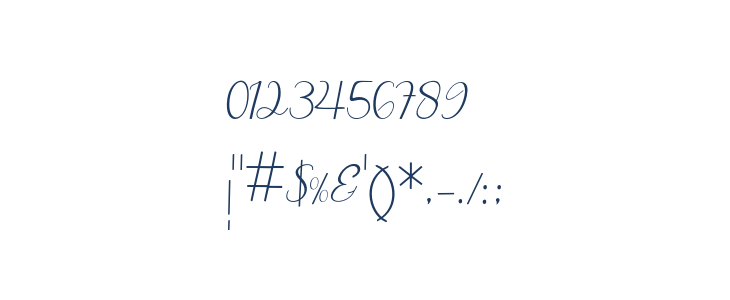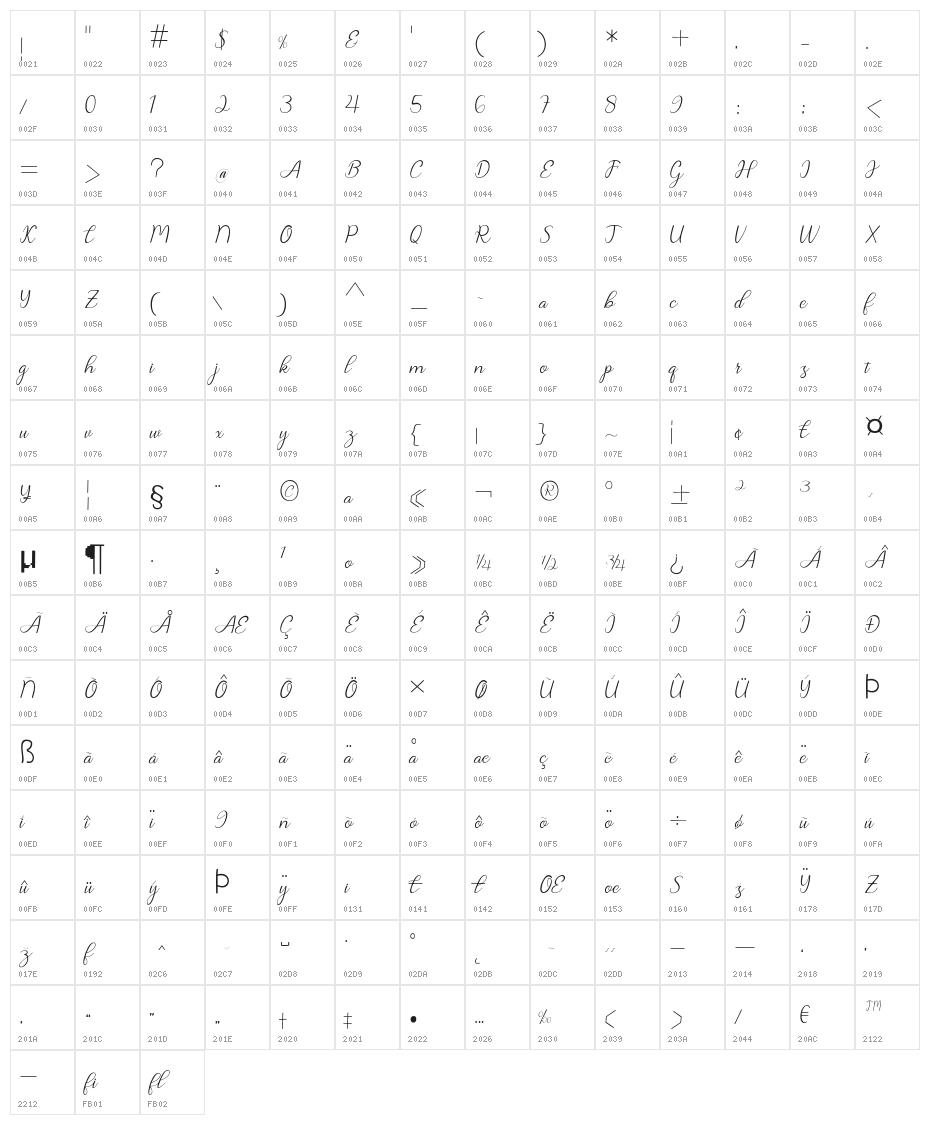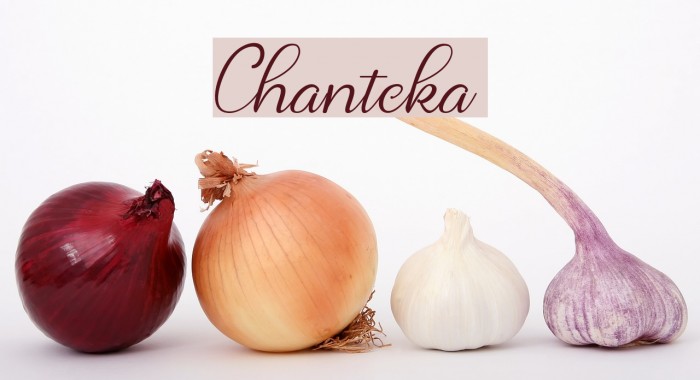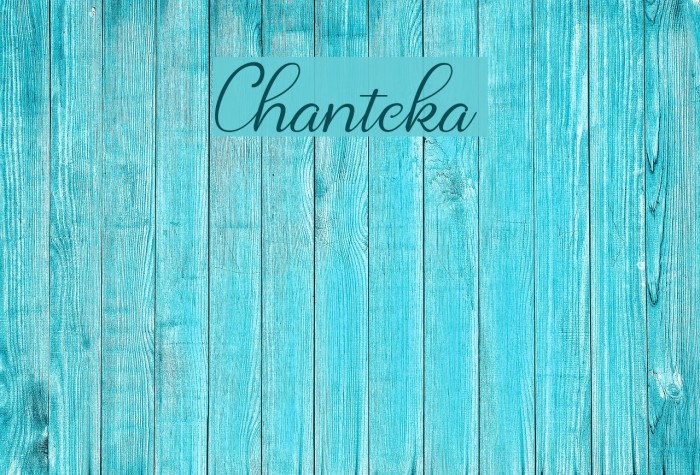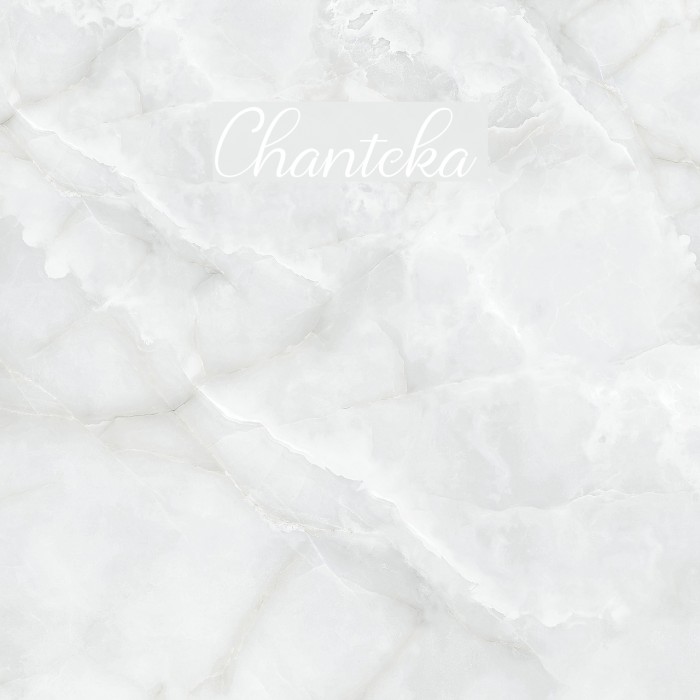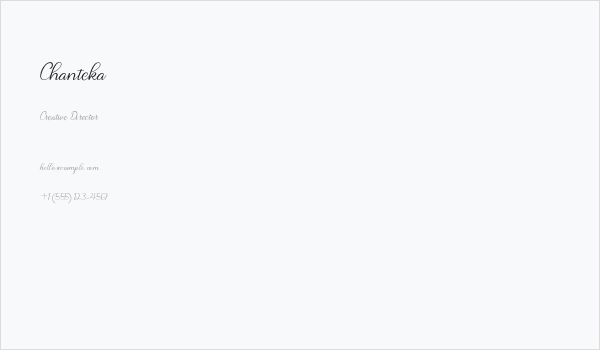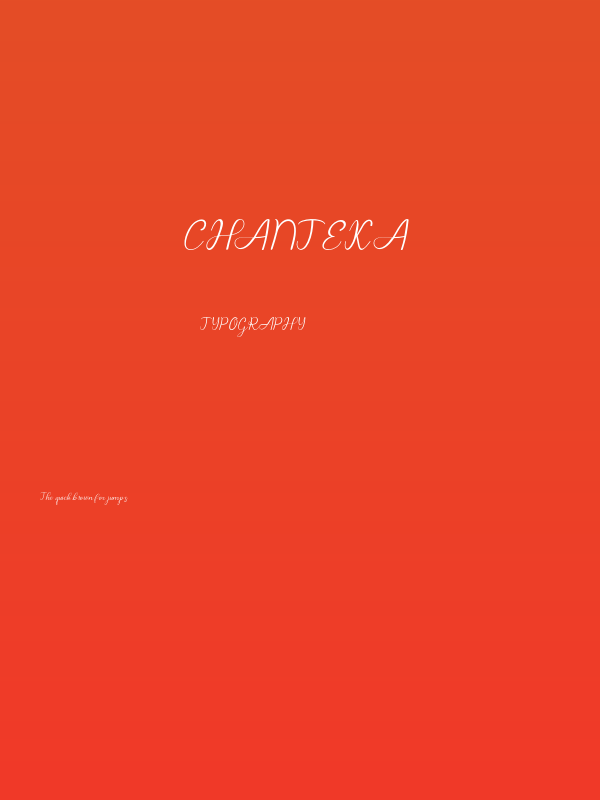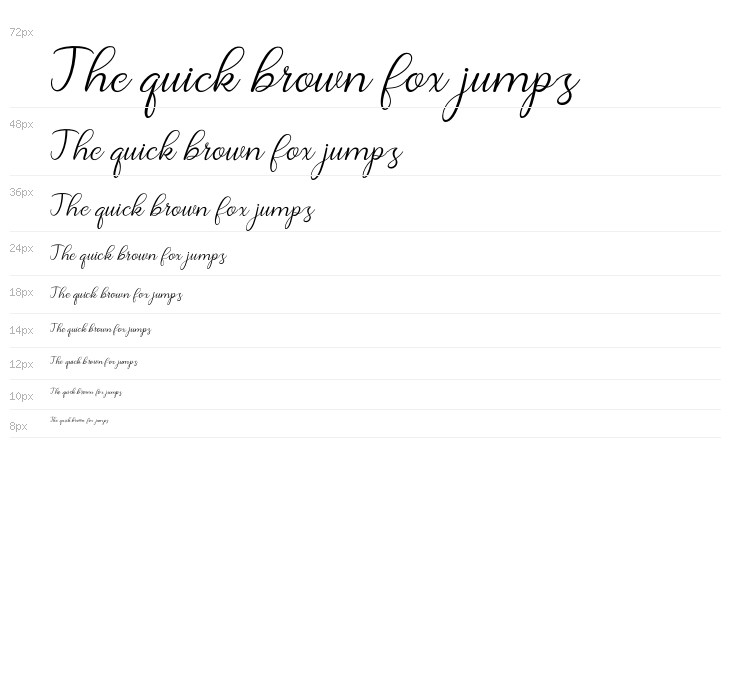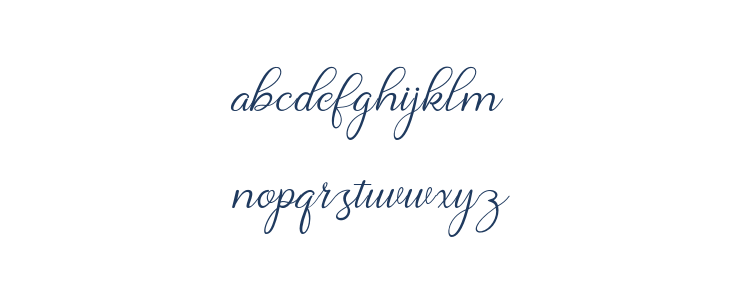
Chanteka Font
Chanteka Description
This elegant script font features a flowing, cursive style with graceful curves and loops. The uppercase letters are particularly ornate, with sweeping lines that extend beyond the baseline and cap height, giving the font a sense of movement and sophistication. The lowercase letters maintain a consistent slant and are connected, enhancing the script's fluidity. The numerals and special characters are designed to match the overall aesthetic, with a delicate touch that complements the letters. This font is ideal for projects that require a touch of elegance and formality.
| Proposed Projects | Wedding invitations, elegant branding, formal event programs, and luxury product packaging. |